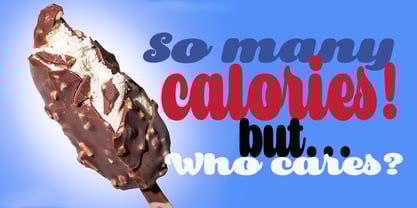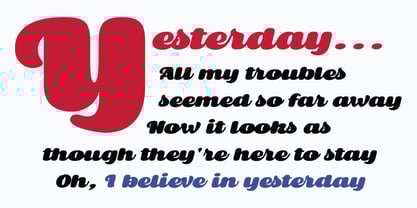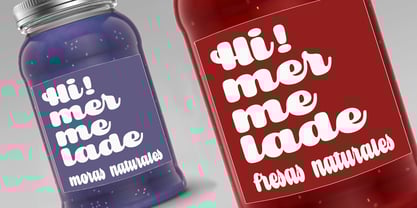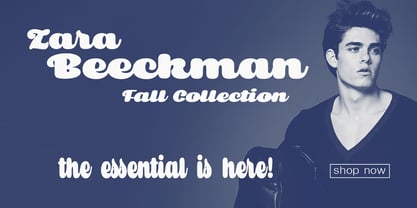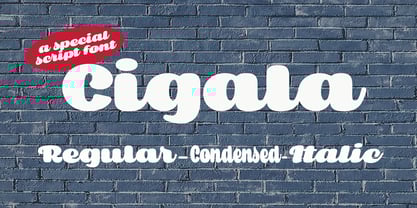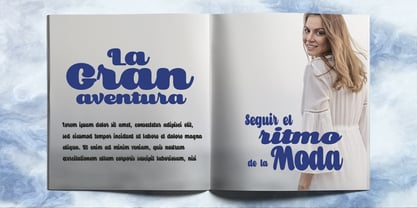
Cigala
The Cigala Font Family was designed by Carine de Wandeleer and published by Eurotypo. Cigala contains 3 styles and family package options. More about this family
Give your designs an authentic and vibrant touch with the Cigala font family!
Cigala is a hand-drawn, heavyweight font with an irresistible vintage charm. Its regular version is perfectly complemented by a condensed and italic version, forming a versatile and dynamic set.
Designed to offer maximum impact, Cigala has multiple OpenType features, such as a wide repertoire of ligatures that bring fluidity and naturalness to each word. Its evocative style is reminiscent of classic calligraphy, but with a warm and authentic touch that will make your creations shine. In addition, it includes support for Central European languages, adapting to any global project.
If you are looking for a font with personality for logos, packaging, labels, signs and headlines, Cigala is the perfect choice. Take your design to the next level with its unique character!